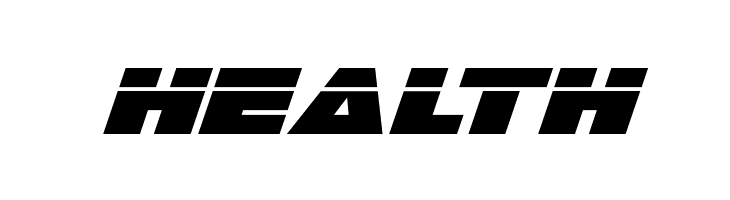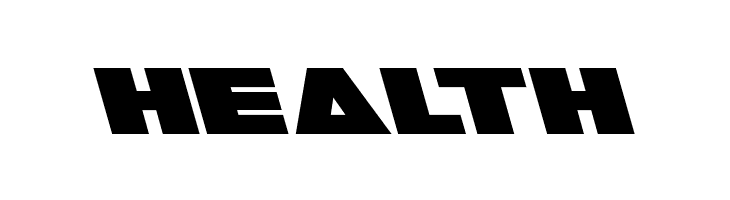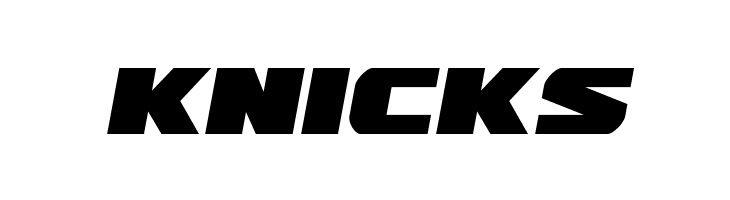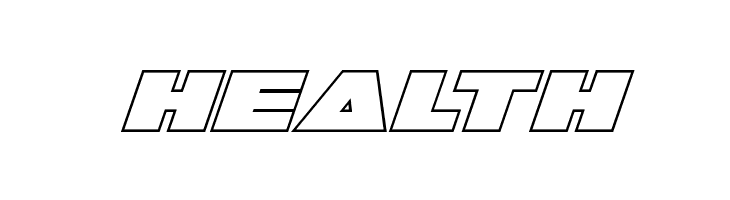
• Guardian Laser Italic
A bold, italic, futuristic font with sharp angles and a dynamic style.
• Guardian Leftalic
A bold, angular font with a leftward slant and futuristic style.
• Guardian Outline Italic
A bold, geometric outline font with an italic slant and modern appeal.
• Guardian Pro Italic
A bold, italicized font with a geometric and futuristic style.
• Guardian Semi-Italic
A bold, italicized font with a modern, angular design.
• Guardian Semi-Italic
Bold, semi-italic font with a dynamic, futuristic style.
• Guardian Shadow Italic
Bold, geometric font with a shadow effect and italic style.
• Guazhiru Italic
A bold, italicized font with sharp, angular letterforms and a dynamic style.
• Guazhiru Italic Outlined
A dynamic, italic outlined font with sharp angles and a modern flair.
• Gudea Italic
A modern sans-serif italic font with clean lines and balanced proportions.